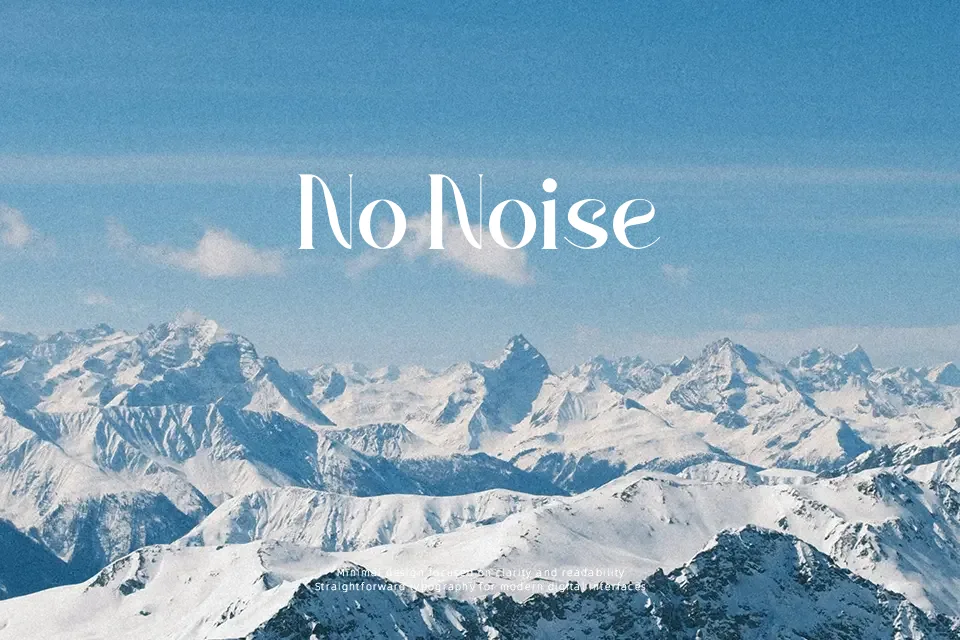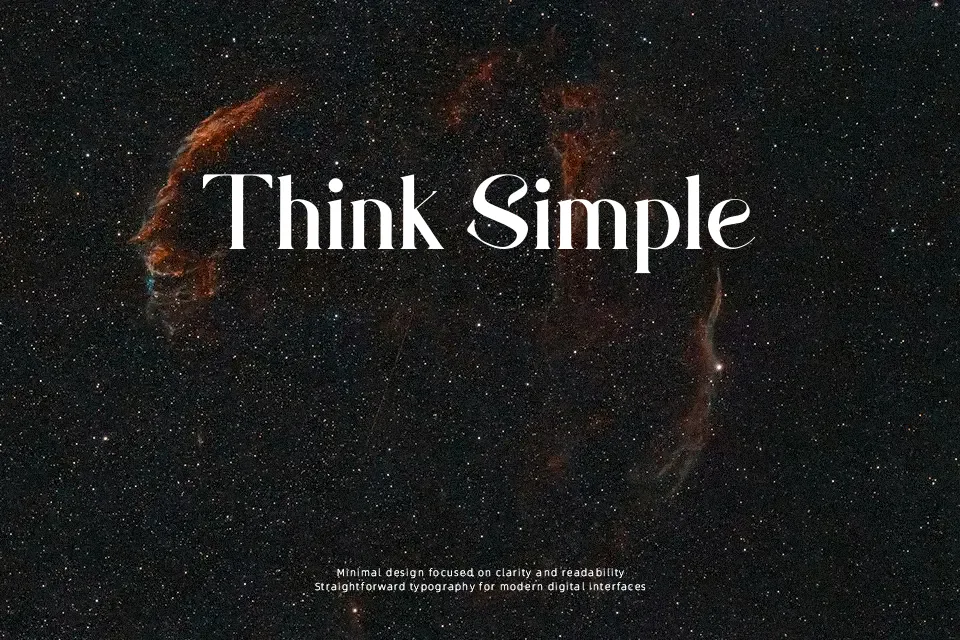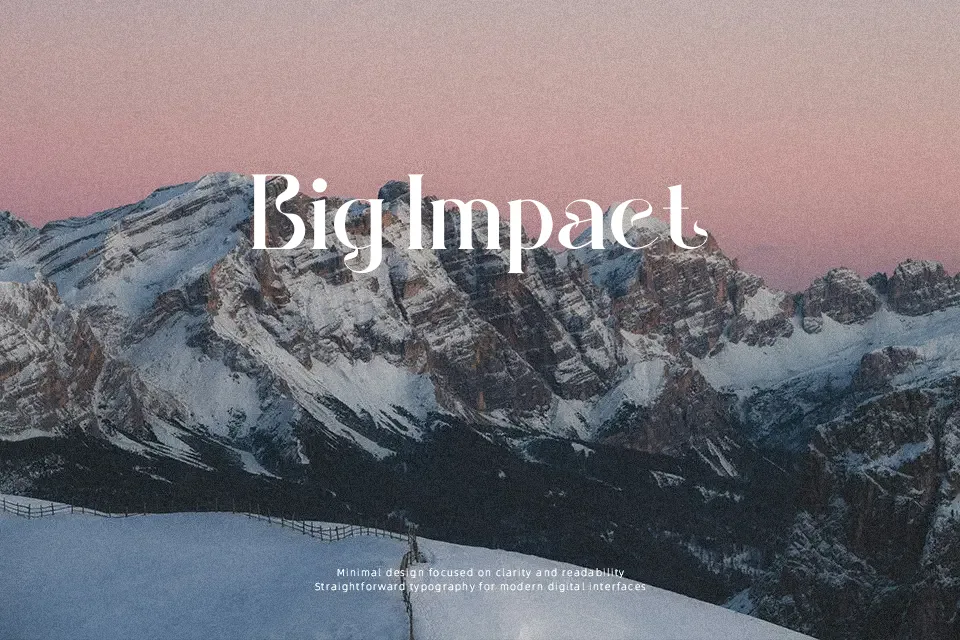
Berlin Font
At first glance, Berlin draws attention with its structured, high-contrast letterforms and sharp decorative edges — somewhere between a classic serif and an ornate display style. The strokes carry enough weight to hold up on large-format prints and poster headers, while the angular geometry gives it a distinct, assertive presence. It works well for nightlife event flyers, lifestyle brand logos, or short impactful titles on social media graphics. That said, this font is not built for running text — spacing gets uncomfortable past a few words, and readability drops quickly at smaller sizes. The personal-use-only license also means any commercial project requires purchasing a separate license, which is worth factoring in early.
Best For:- Nightlife or event poster headers
– Lifestyle or fashion brand wordmarks
– Short social media headline overlays
– Decorative title cards or cover art
Not Ideal For:- Body text or multi-line paragraphs
– Corporate documents or formal reports
– Small-scale print where stroke detail gets lost